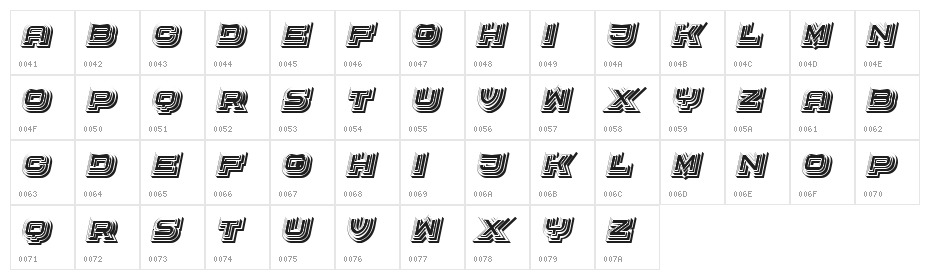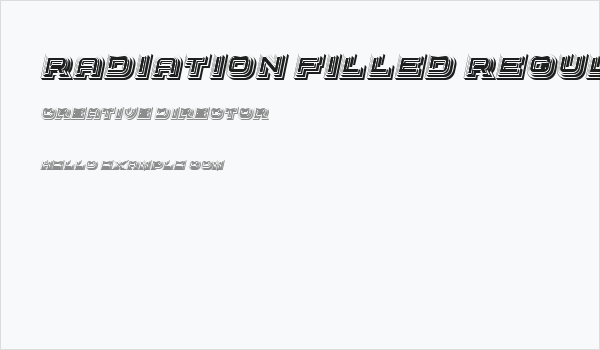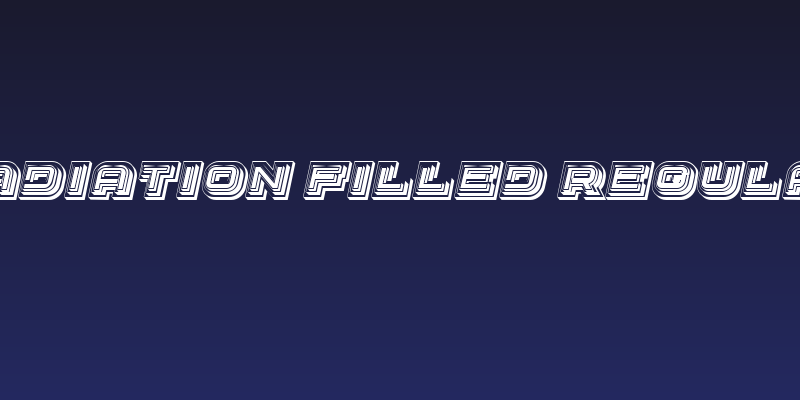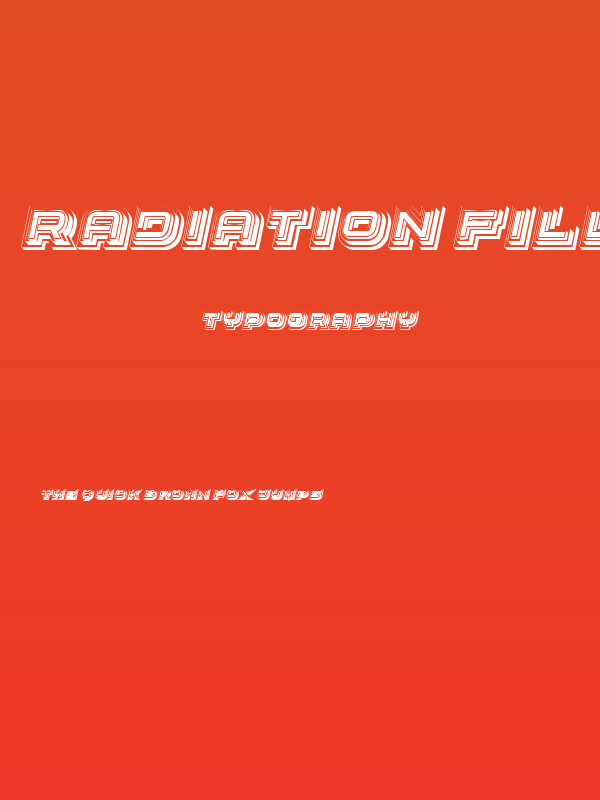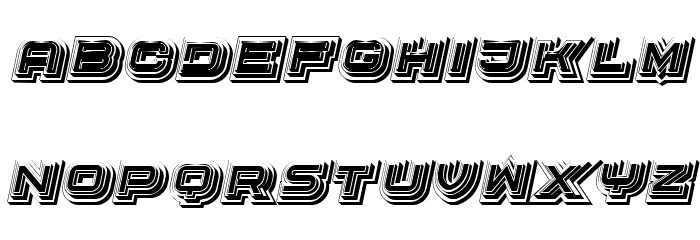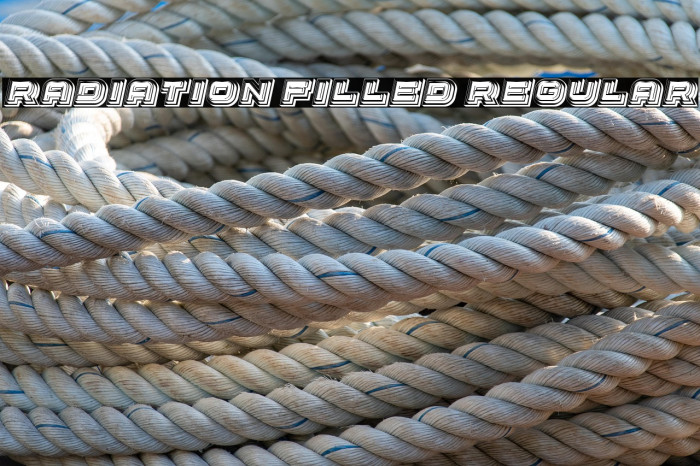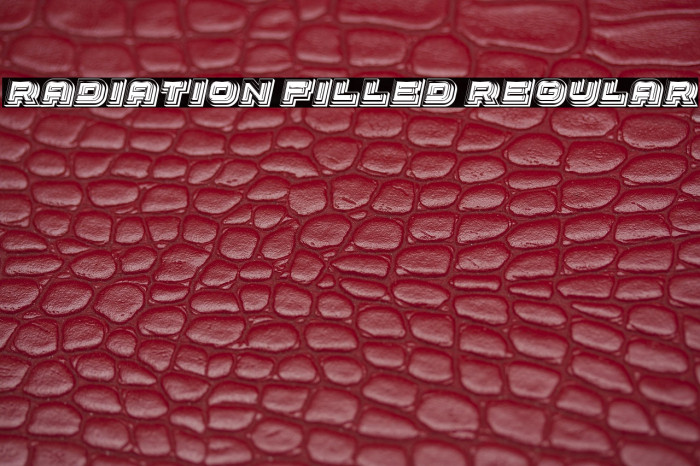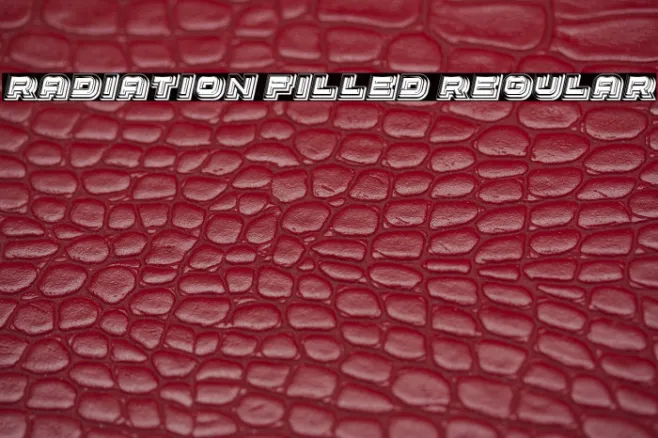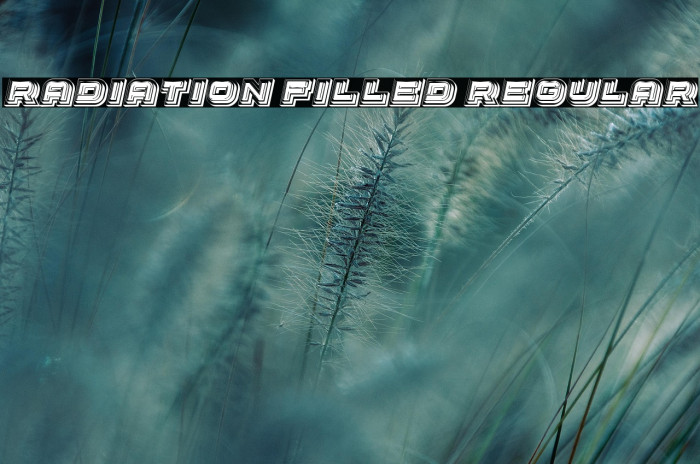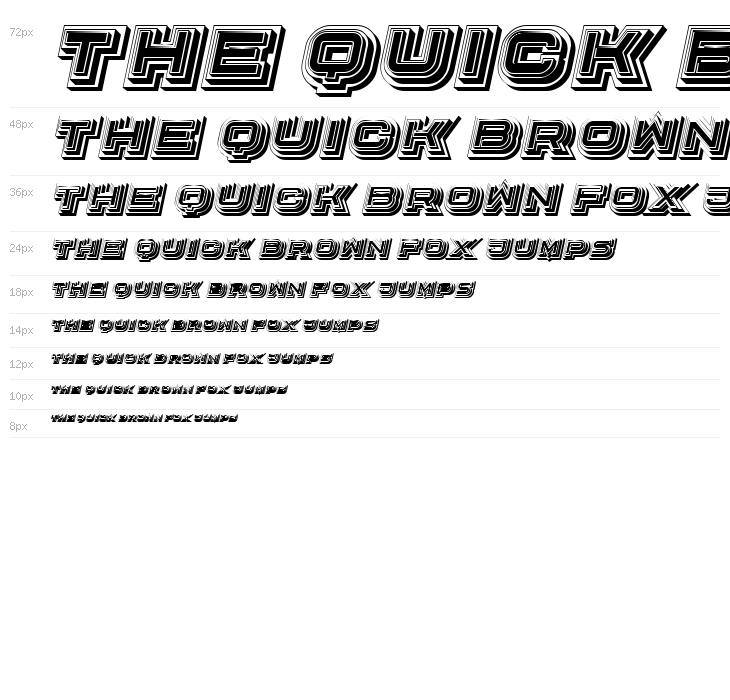
Radiation Filled Regular Font
Radiation Filled Regular Description
This font features a bold, futuristic design with a distinct three-dimensional effect. The characters are outlined with multiple layers, creating a sense of depth and movement. The geometric shapes and sharp angles give it a modern, edgy appearance. The uppercase and lowercase letters maintain a consistent style, with a strong emphasis on horizontal and vertical lines. The numbers and special characters are designed to match the overall aesthetic, making it suitable for eye-catching displays. The font's unique style makes it ideal for projects that require a bold and dynamic visual impact.
| Proposed Projects | Ideal for sci-fi themed posters, video game titles, tech branding, and dynamic advertising. |